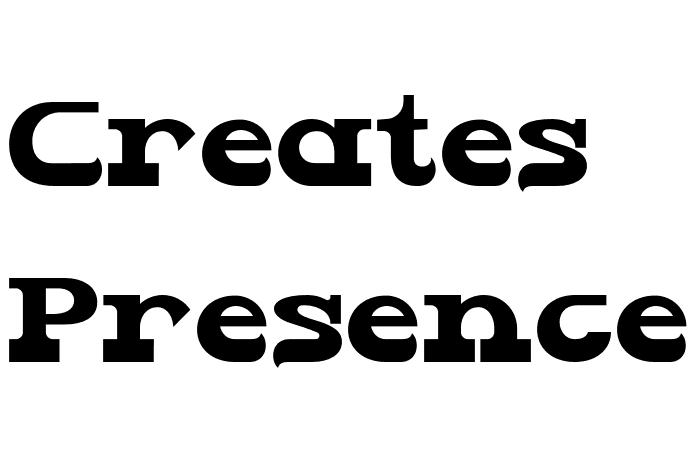
Magista
Magista Font is an elegant and chic serif font. Add it confidently to your projects, and you will love the results. This font is PUA encoded which means you can access all of the glyphs and swashes with ease!